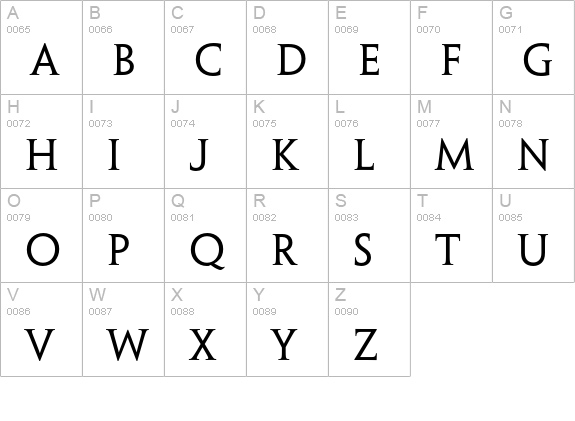
Penumbra Serif Std Font Details
Penumbra Serif Std is a captivating and versatile font that seamlessly blends elegance with a touch of modernity. Its distinctive serifs and graceful curves lend a sense of sophistication to any project, making it ideal for both print and digital designs. With its wide range of weights and styles, Penumbra Serif Std offers endless possibilities for creating captivating headlines, eye-catching logos, and refined body text. What sets Penumbra Serif Std apart is not only its exceptional aesthetics but also its accessibility. This remarkable font is available for free, allowing designers, creatives, and enthusiasts to unleash their creativity without any financial constraints. Simply head over to FontsMarket.com to download Penumbra Serif Std and start incorporating its timeless beauty into your next project. Whether you're designing a magazine layout, crafting a stylish website, or creating elegant invitations, Penumbra Serif Std will effortlessly elevate your work to new heights. Its legibility ensures a smooth reading experience, while its subtle details and fine craftsmanship add a touch of allure and sophistication. Penumbra Serif Std's versatility shines through in its ability to seamlessly adapt to various design aesthetics and themes. From classic and traditional to modern and minimalistic, this font effortlessly complements any style, making it a go-to choice for designers seeking a harmonious balance between elegance and functionality. With its extensive character set, Penumbra Serif Std supports multiple languages, making it a valuable asset for international projects. Whether you need to create captivating headlines in English, French, Spanish, or any other language, this font delivers exceptional legibility and visual appeal. Embrace the beauty and versatility of Penumbra Serif Std and witness how it effortlessly enhances your designs. Download this remarkable font for free at FontsMarket.com and unlock a world of endless creativity and timeless elegance. Elevate your typography game and leave a lasting impression with the captivating charm of Penumbra Serif Std.